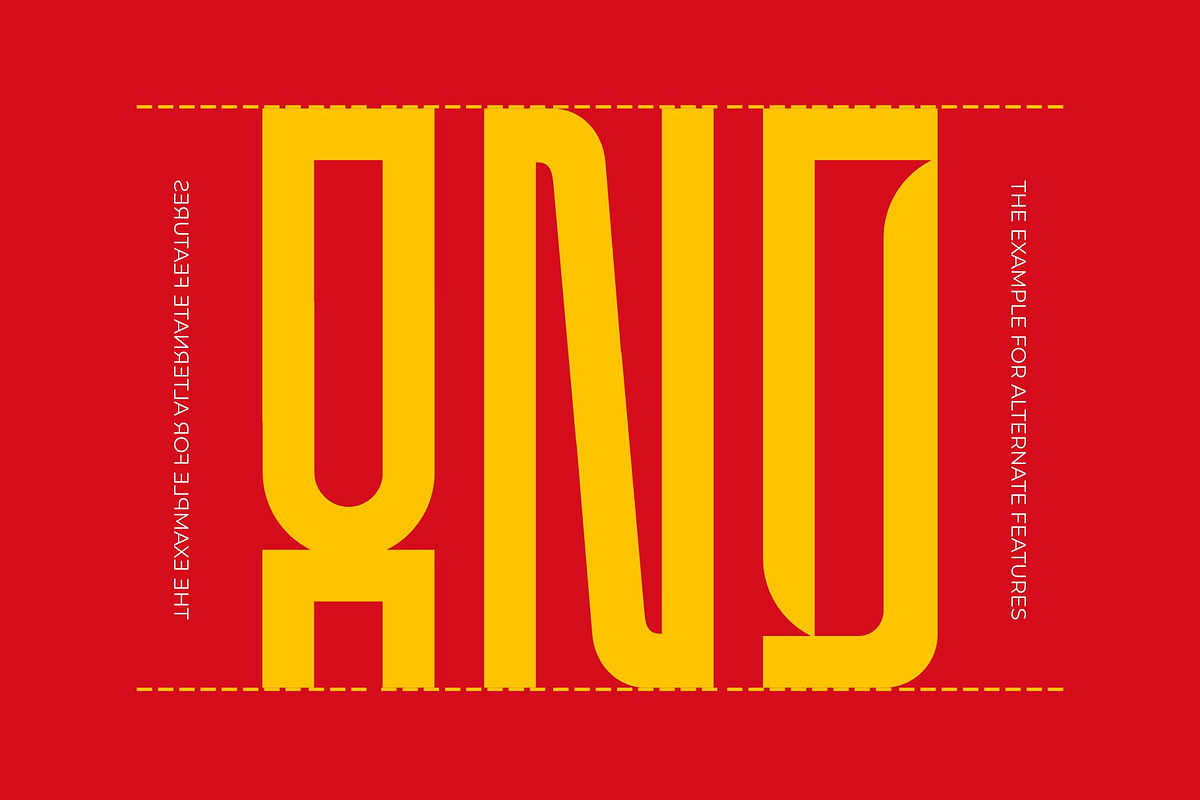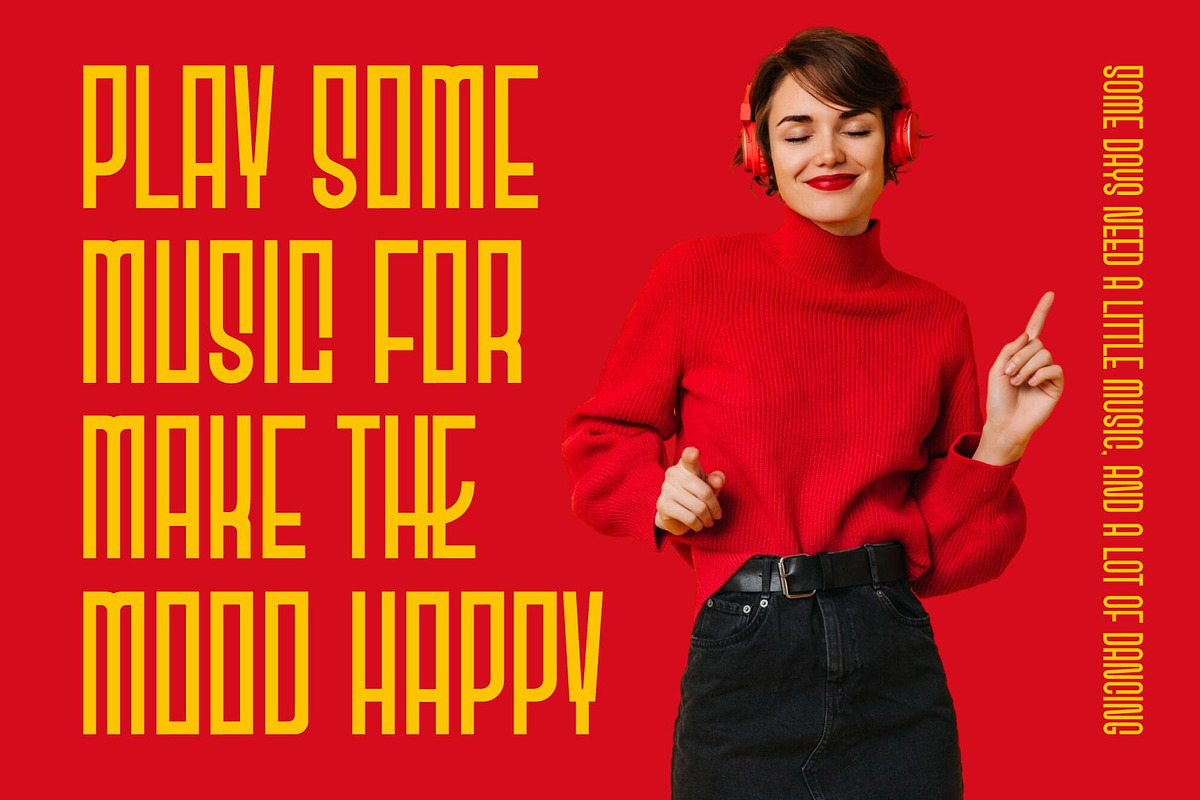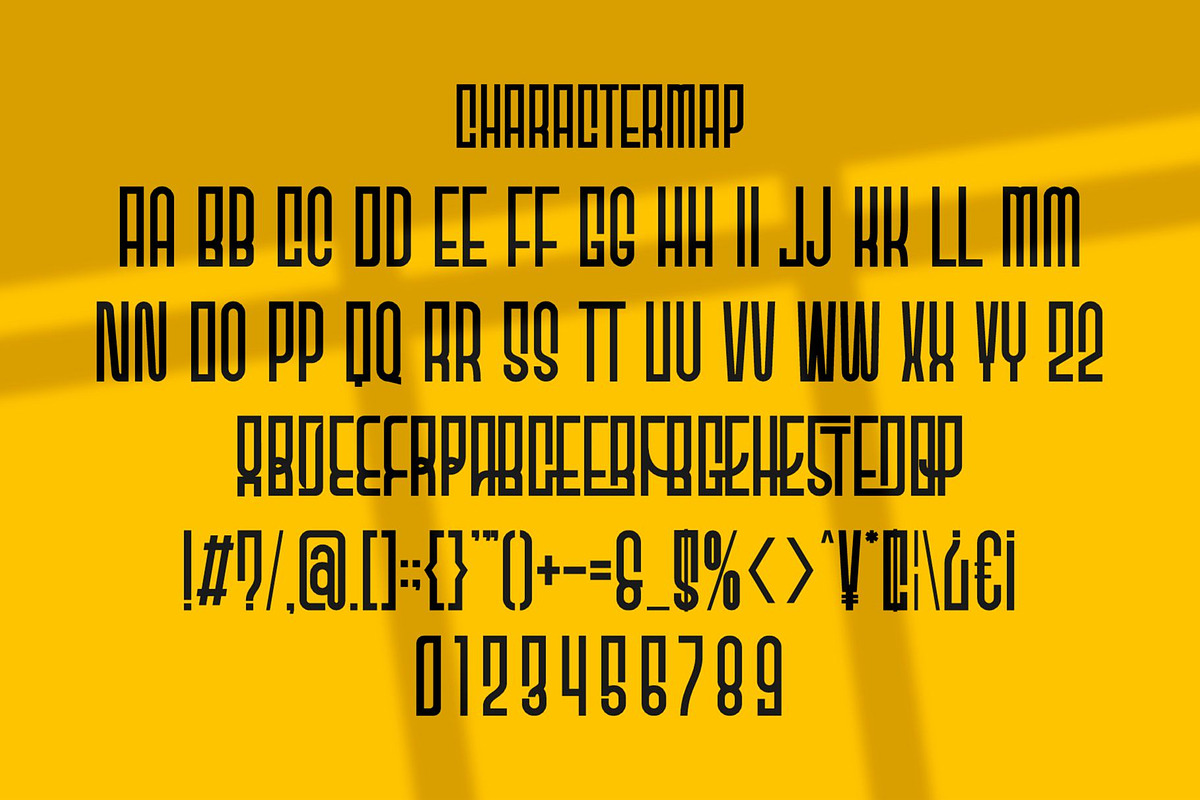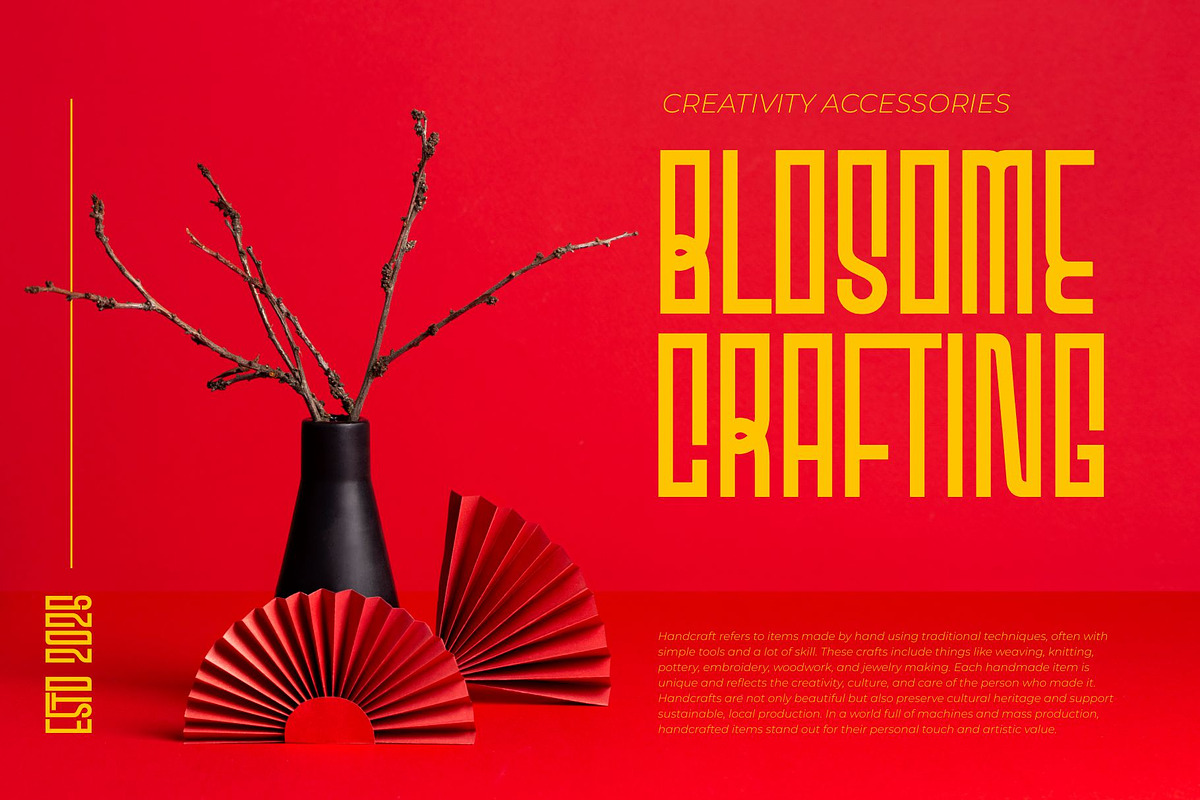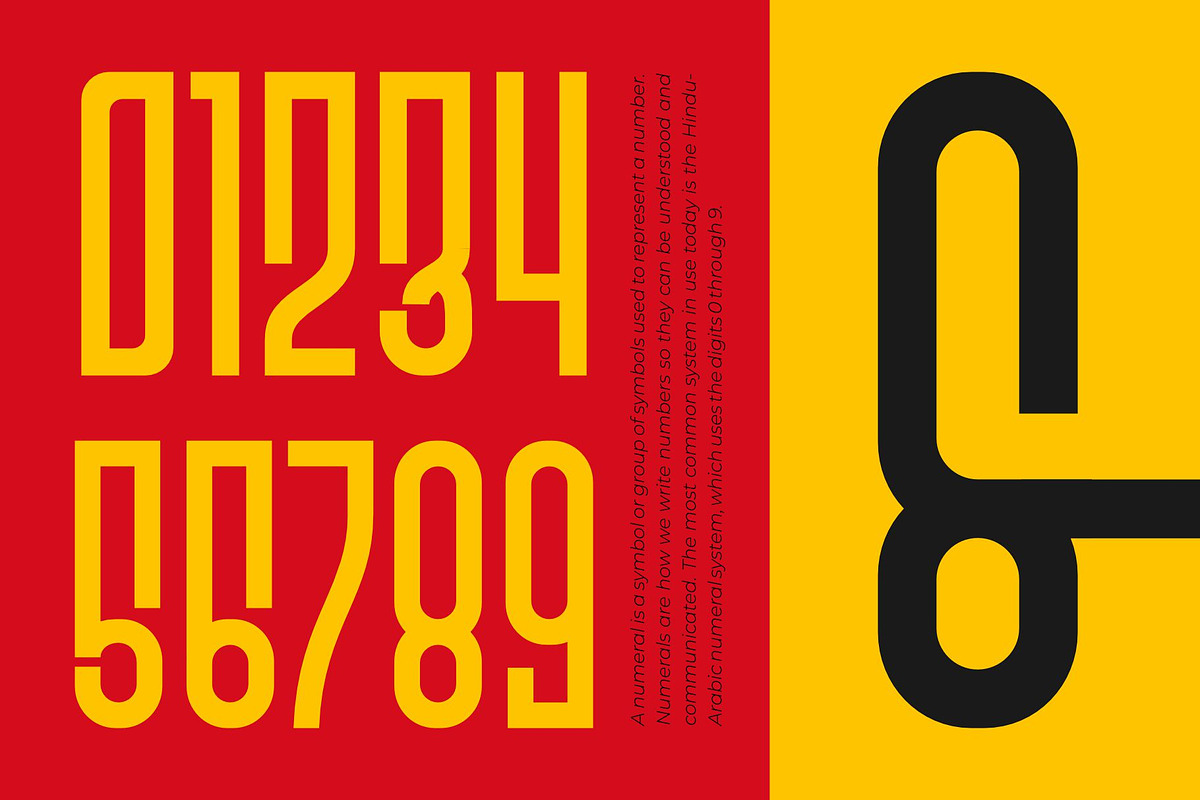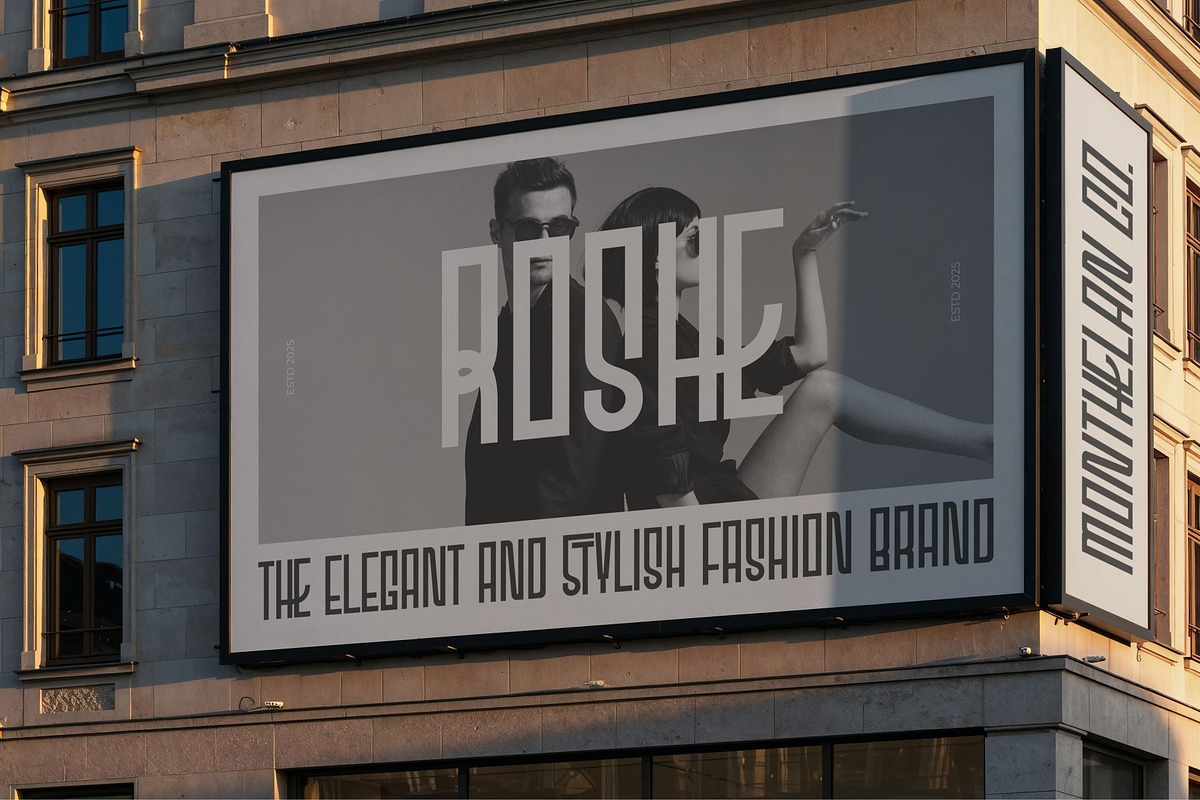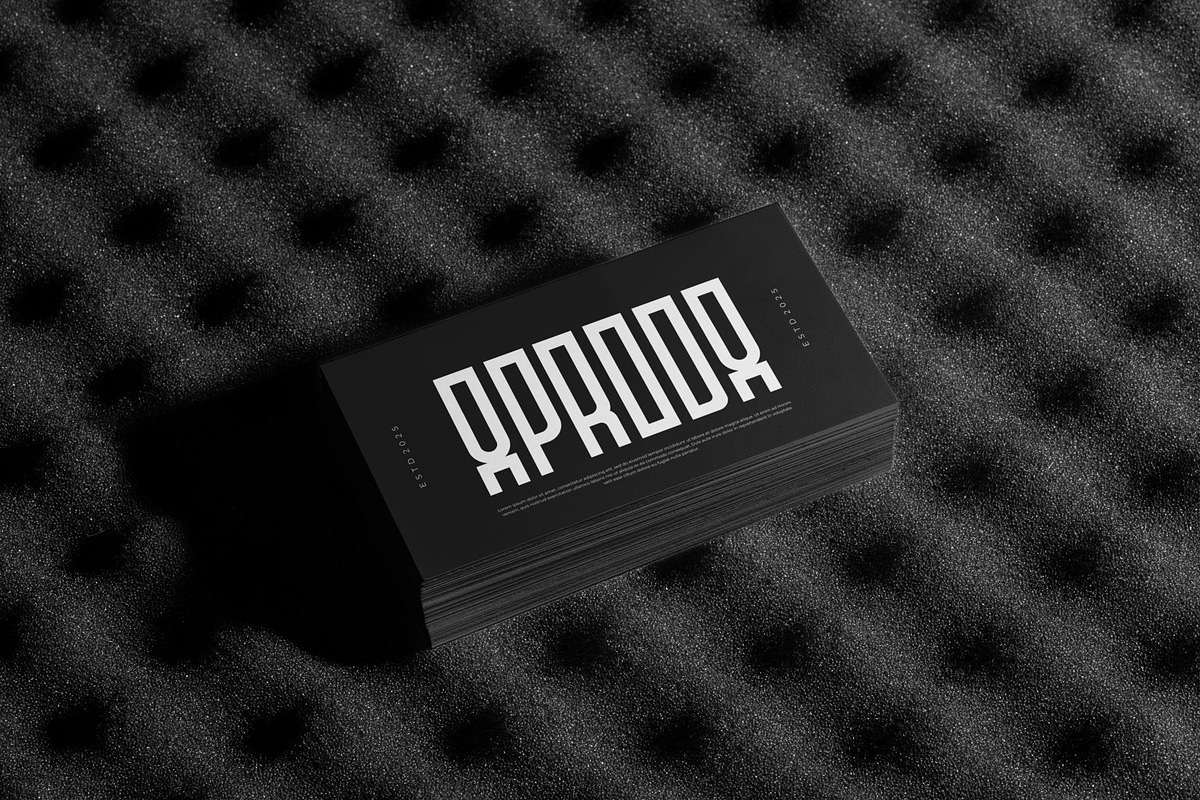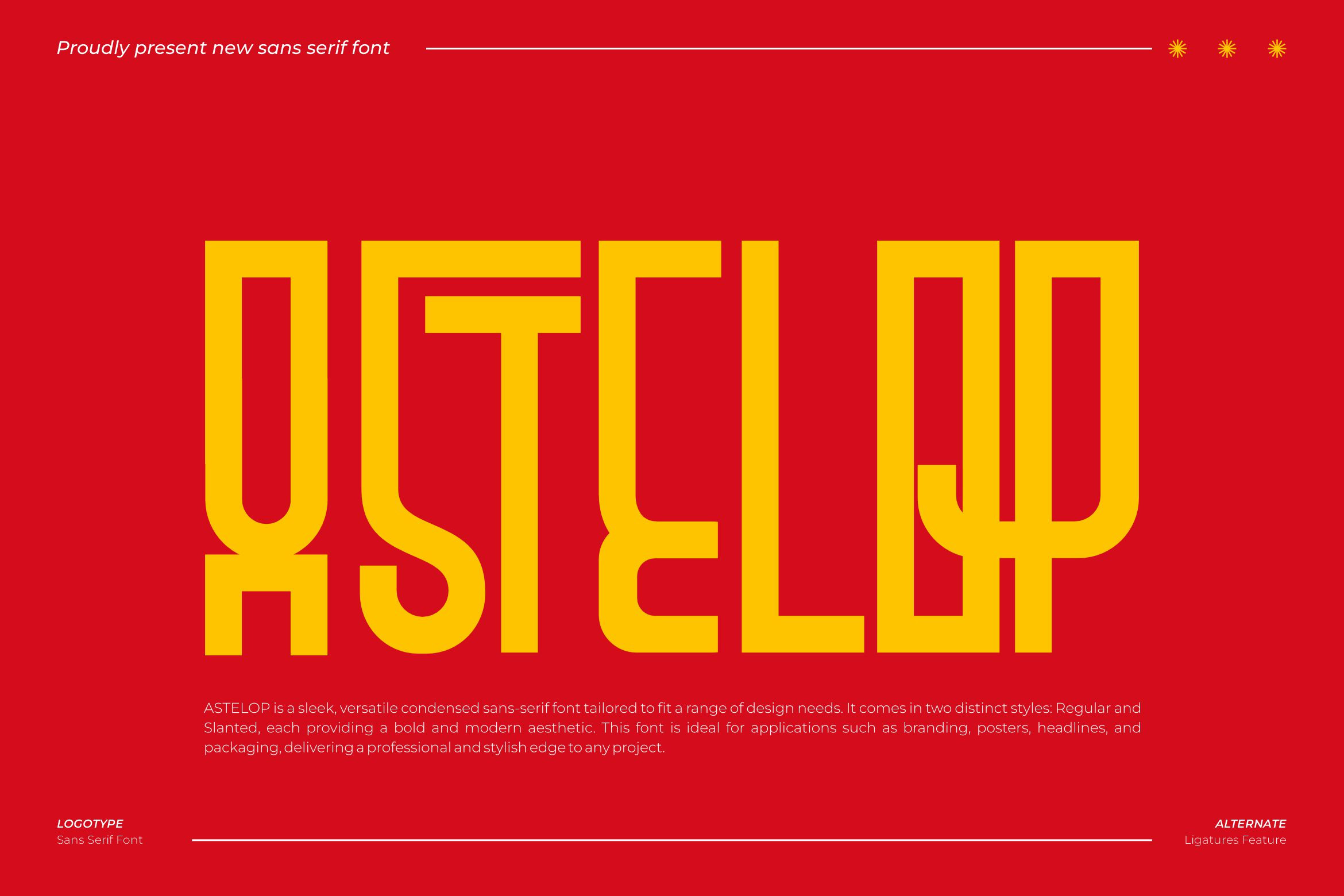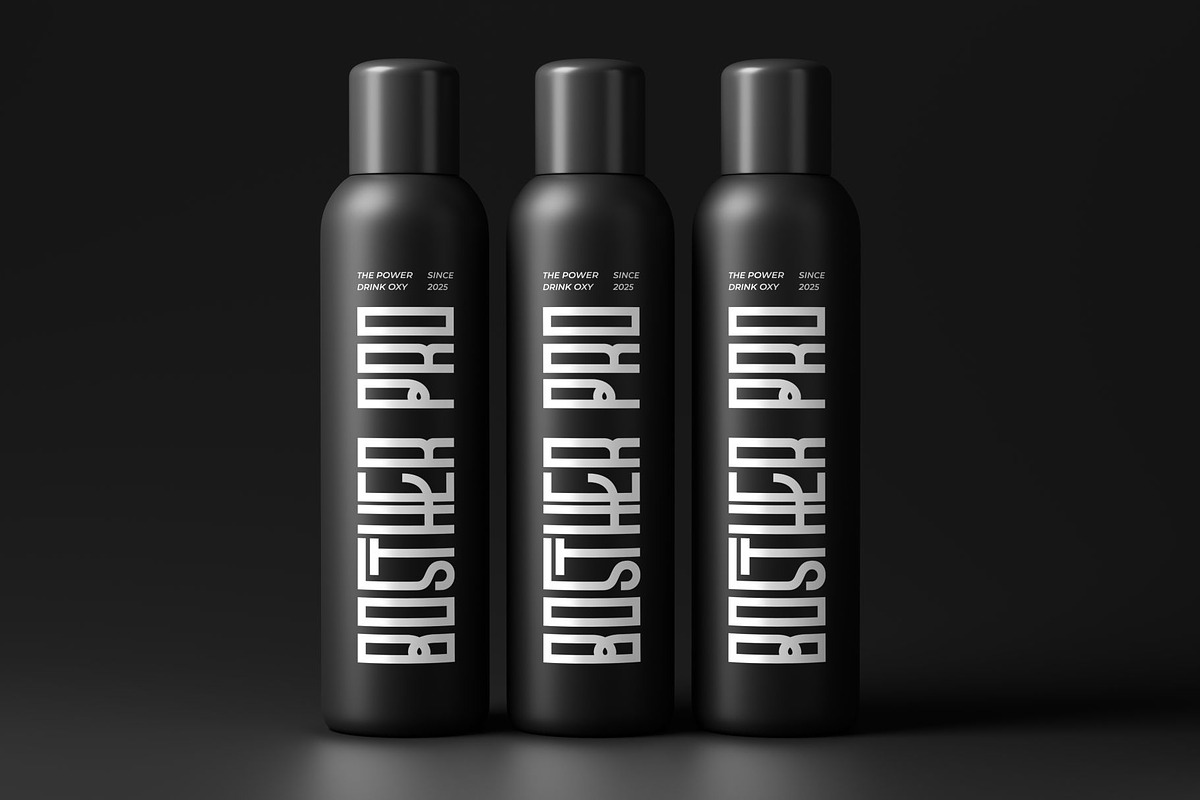
Astelop || Condensed Sans Serif Font
Introducing Astelop is tall sans serif Font modern, trendy and stylish. It has a unique character with wood theme. It is perfect to be combined with invitation card designs, company logos, movie titles, movie names, business cards, book titles, brand names and various other designs.